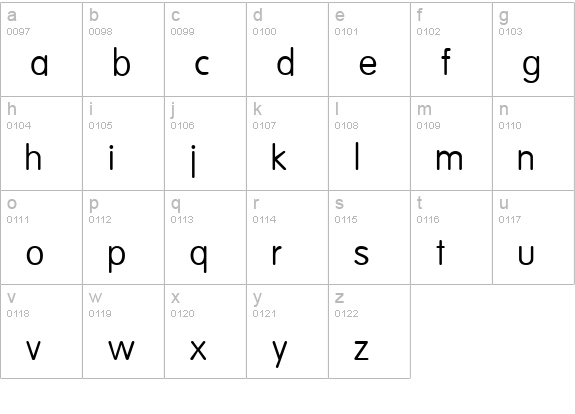
QTVagaRound Regular is the standard, neutral variant in the QTVagaRound typeface family \xE2\x80\x94 well suited to general body text, paragraphs, and standard typographic work.
QTVagaRound Regular is a stunning and versatile font that exudes a contemporary yet playful vibe. Its sleek curves and rounded edges lend a friendly and approachable feel to any design project. This font is perfect for adding a touch of casual elegance to logos, advertisements, headlines, and more. What sets QTVagaRound Regular apart is not only its exquisite design but also the fact that it is freely available to download at FontsMarket.com. Yes, you read that right – this amazing font can be yours for absolutely no cost. With just a few clicks, you can enhance your creative projects without spending a dime. Whether you are a professional designer looking to add a unique flair to your work or a student working on a personal project, QTVagaRound Regular is the ideal choice. Its versatility allows it to seamlessly blend into a variety of design styles, making it a valuable asset for any creative endeavor. The clean and legible characters of QTVagaRound Regular ensure optimal readability, whether in print or on digital platforms. Its balanced proportions and precise spacing guarantee that your text will be easily read, ensuring a smooth reading experience for your audience. So why wait? Discover the beauty and functionality of QTVagaRound Regular today, and elevate your designs to new heights. Download it for free at FontsMarket.com and unlock a world of creative possibilities.